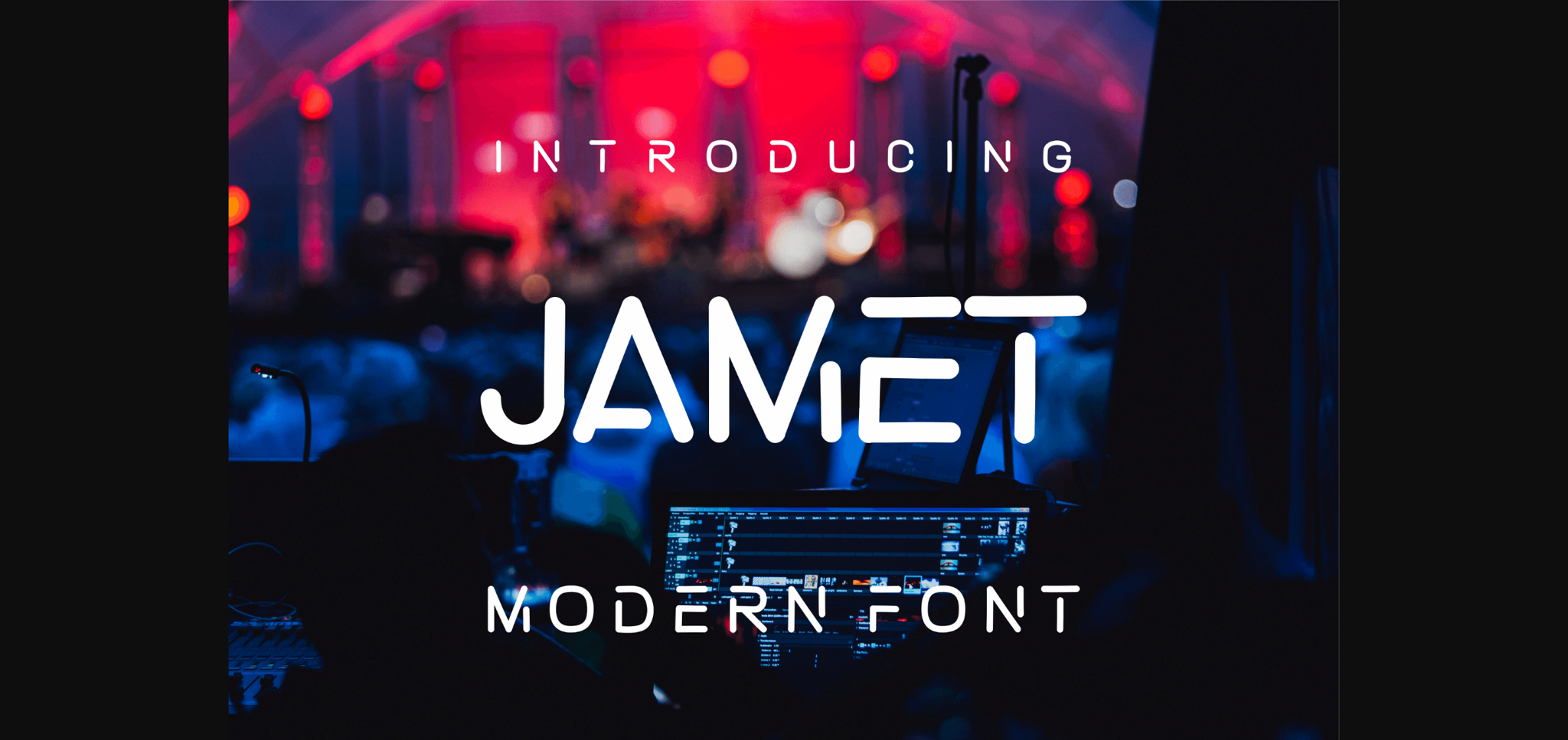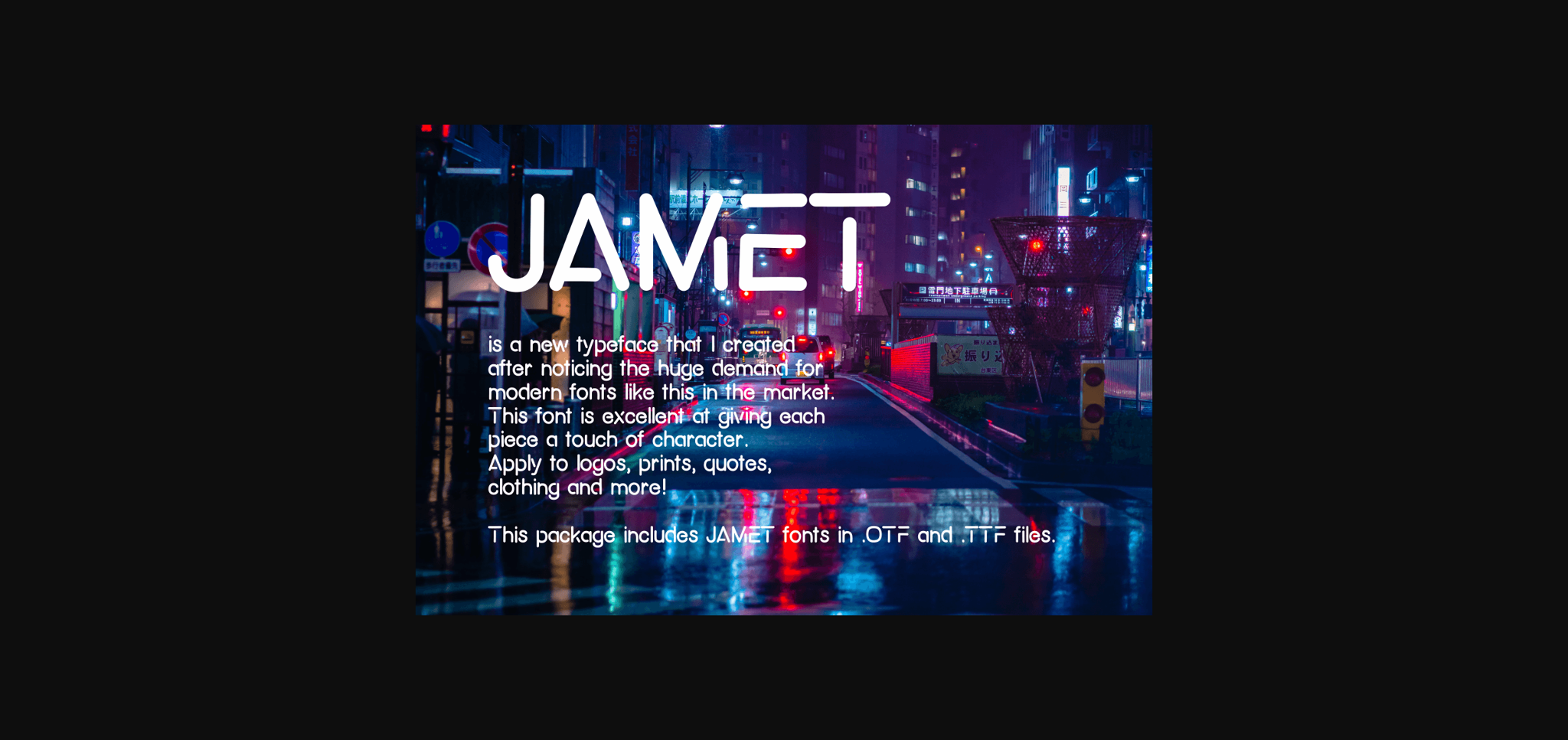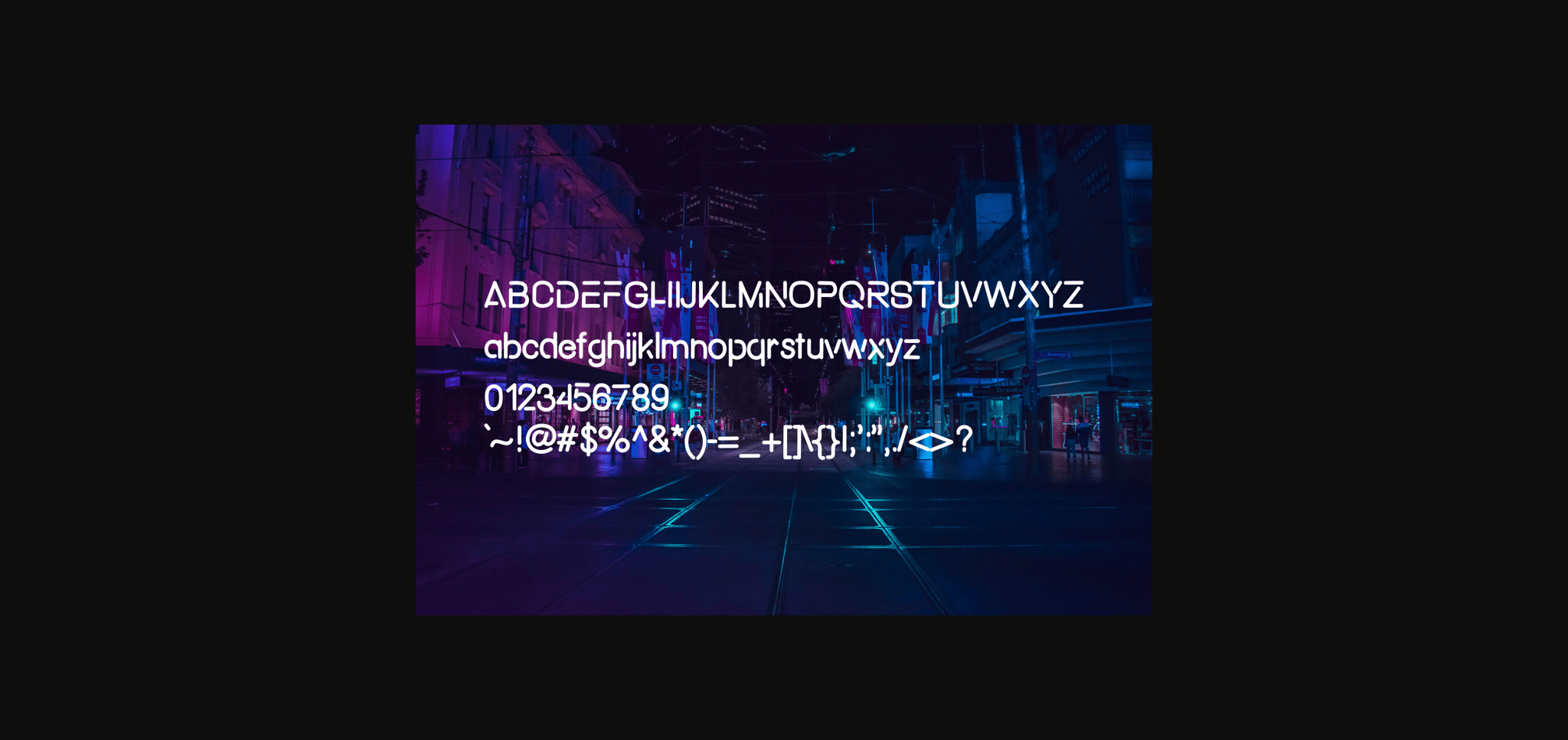
Jamet is a hip and trendy sans serif font. Contemporary and fresh, it is perfect for any design you wish to create. Add it to your creative projects and make them outstanding!